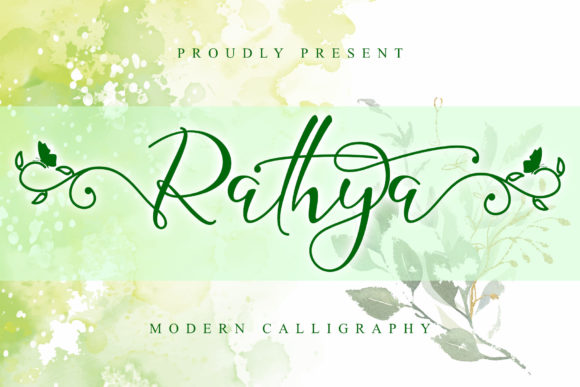
In a world where fonts speak louder than words, let Rathya's enchanting dance of letters cast a spell on your designs. This exquisite handwritten script, crafted with love by andreyfontdesign, is an ode to romance and elegance.
Rathya's delicate strokes, reminiscent of a gentle summer breeze caressing a field of flowers, will breathe life into your invitations, cards, and any design that craves a touch of whimsy and charm. Experience the magic of Rathya, a font that reflects your unique style and personality.
With Rathya by your side, your designs will blossom into works of art, capturing hearts and leaving a lasting impression. Its PUA encoding makes accessing glyphs and swashes a breeze, ensuring effortless creative freedom.
Unleash your imagination and let Rathya guide you on a journey of visual storytelling. From wedding invitations that exude timeless elegance to greeting cards that overflow with warmth and joy, Rathya will transform your words into captivating expressions of love and connection.
Rathya isn't just a font; it's an experience. A journey into a realm where creativity and beauty dance in perfect harmony. Embrace Rathya today and let your designs flourish with its enchanting allure.